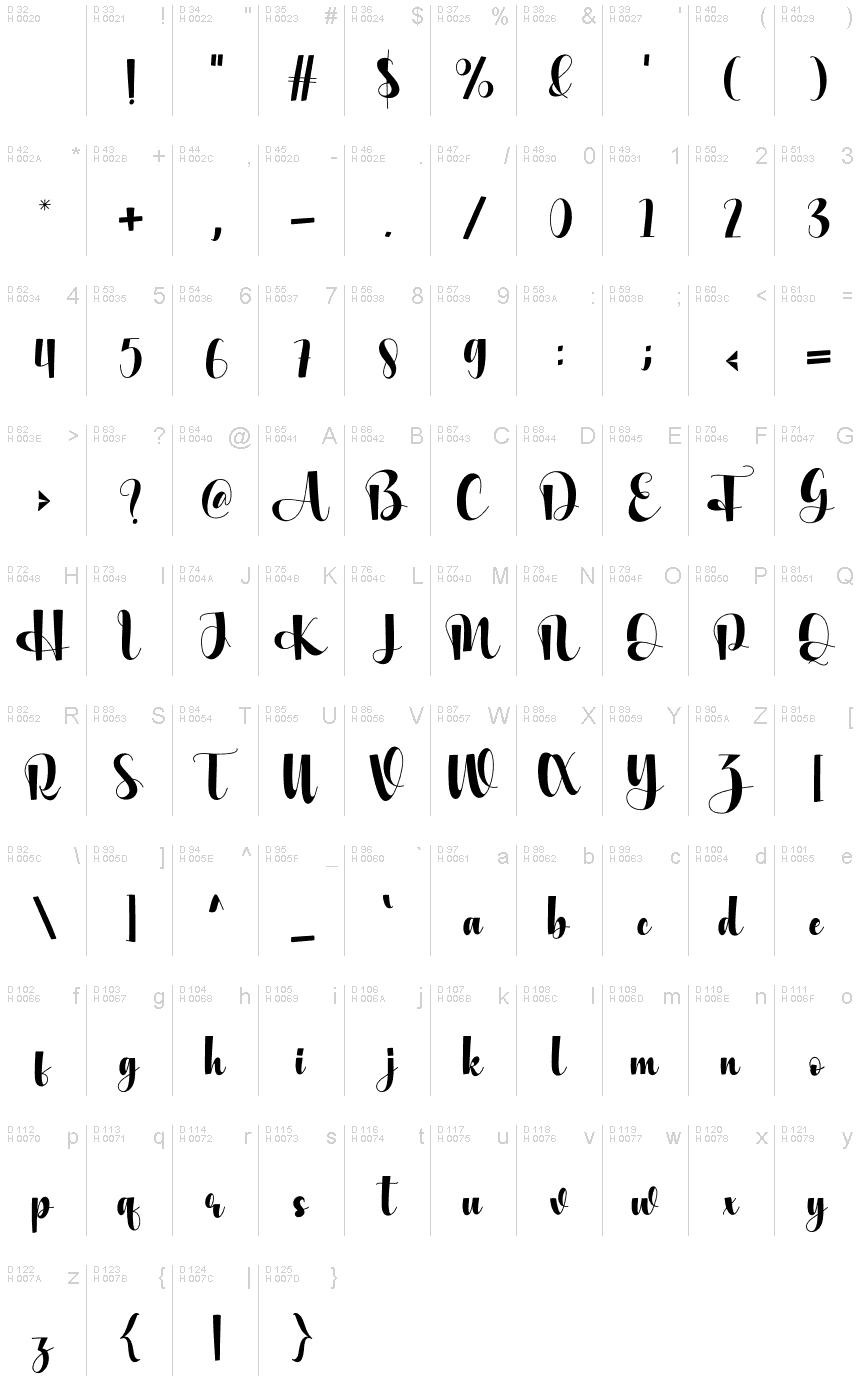
Update
Elevate your design with Update, a calligraphy masterpiece from the creative mind of Scratchones. This semi-bold font weaves elegance with contemporary flair, making it an impeccable choice for invitations, branding, and editorial designs. Update's flowing yet precise strokes offer a personal touch that resonates with sophistication and modernity. Ideal for artists who seek to infuse their projects with character and style, this font stands out in its ability to marry tradition with the pulse of current design trends.
Embrace the versatility of Update for a statement that is both timeless and bold.
the latest style letters are perfect for wall displays, wedding invitations, social media post logos,
advertisements, product packaging, product designs, labels, photography, watermarks, invitations, stationery, and any project that requires taste handwriting.